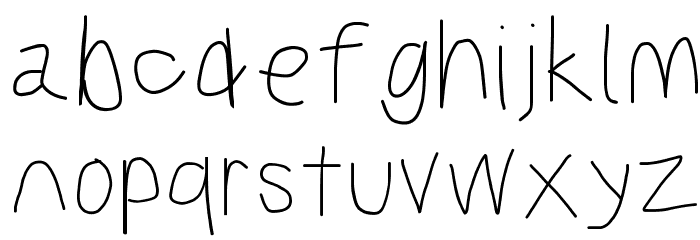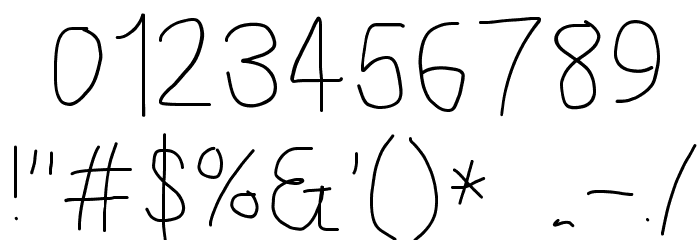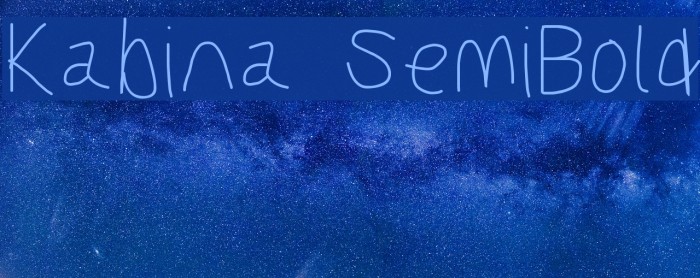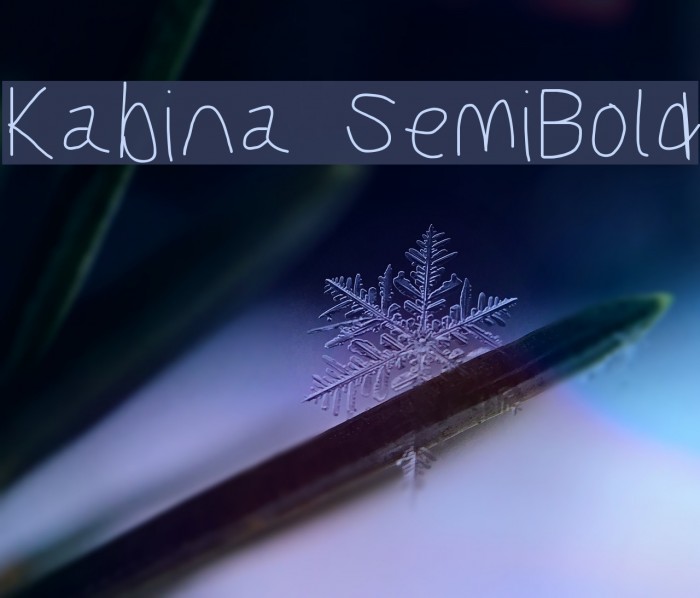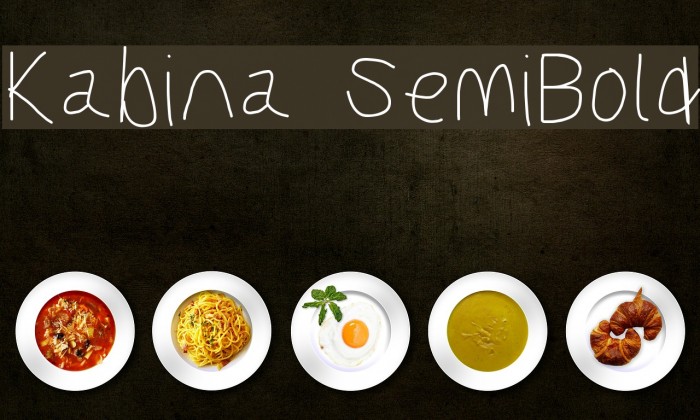
Kabina SemiBold Font
This font features a playful and informal handwritten style, characterized by its thin, consistent strokes and slightly irregular letterforms. The uppercase and lowercase letters maintain a casual and approachable appearance, making it ideal for projects that require a personal touch. The numerals and special characters follow the same whimsical design, ensuring a cohesive look across all text elements. The font's simplicity and charm make it versatile for various creative applications, from children's books to casual branding.
A playful handwritten font with thin, consistent strokes and a casual style.
- Proposed Projects: Ideal for children's books, casual branding, greeting cards, and personal blogs.
- Overall Style: Casual, Playful
- Use Case: Headlines, Informal text, Creative projects